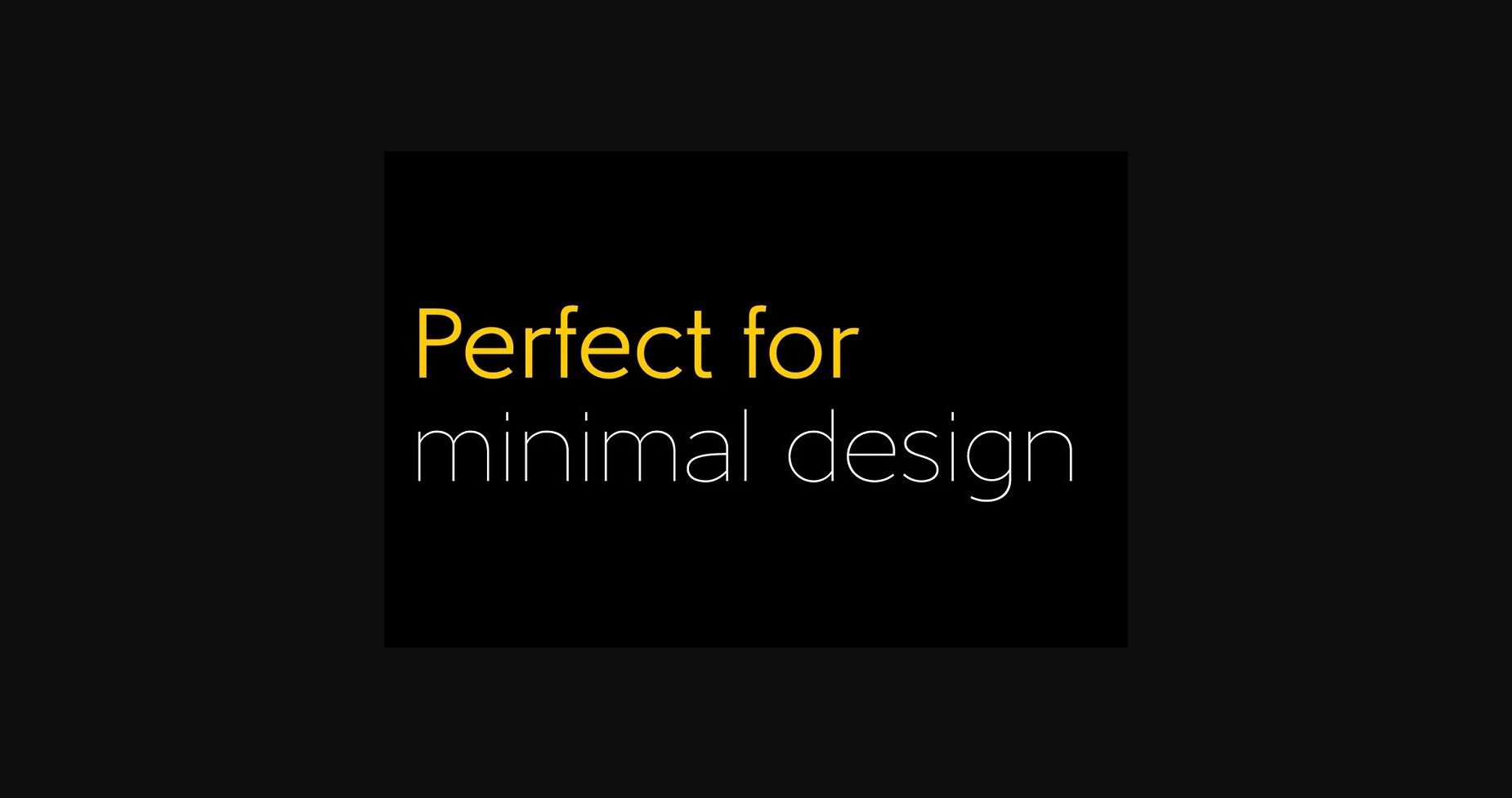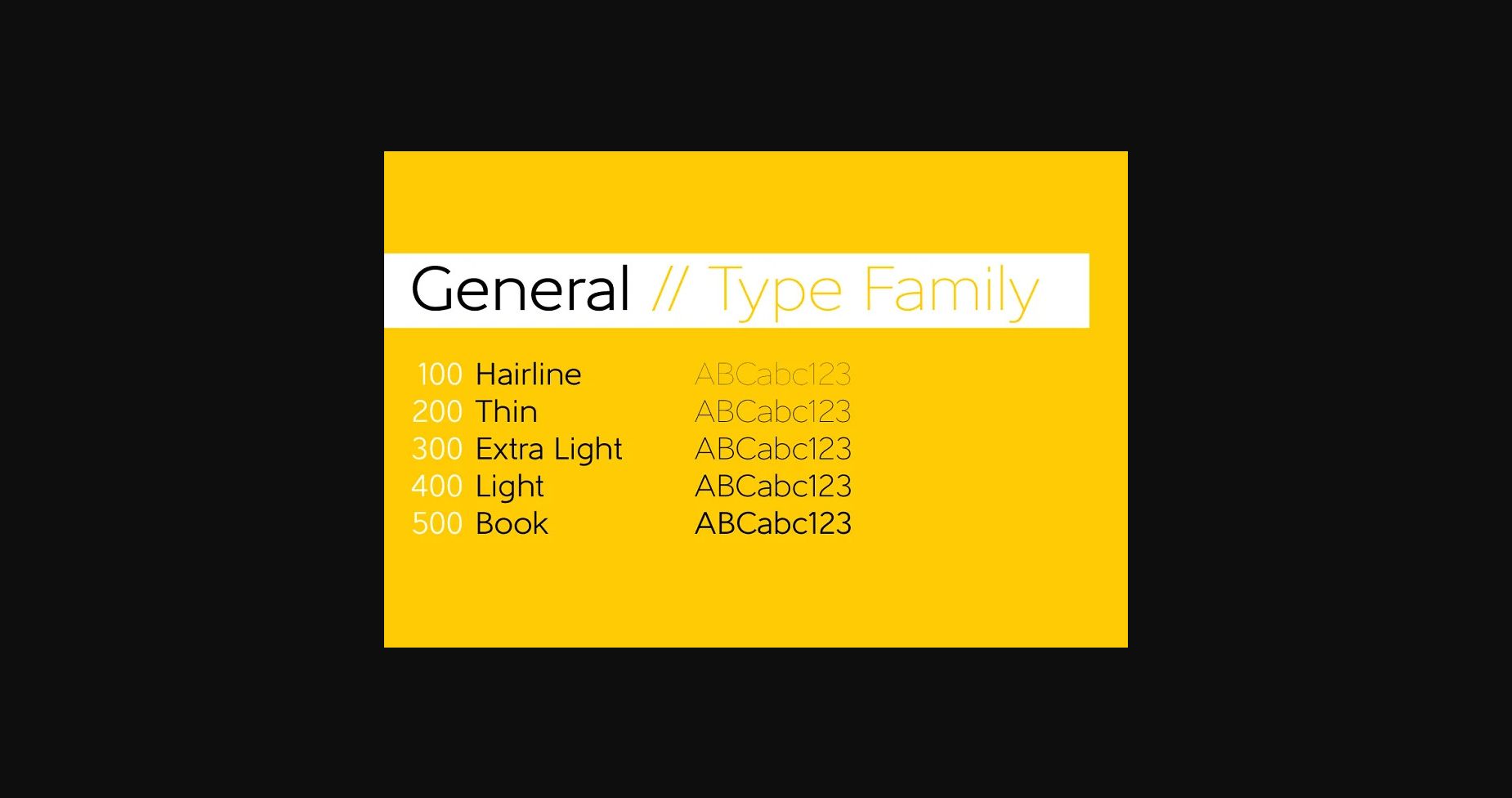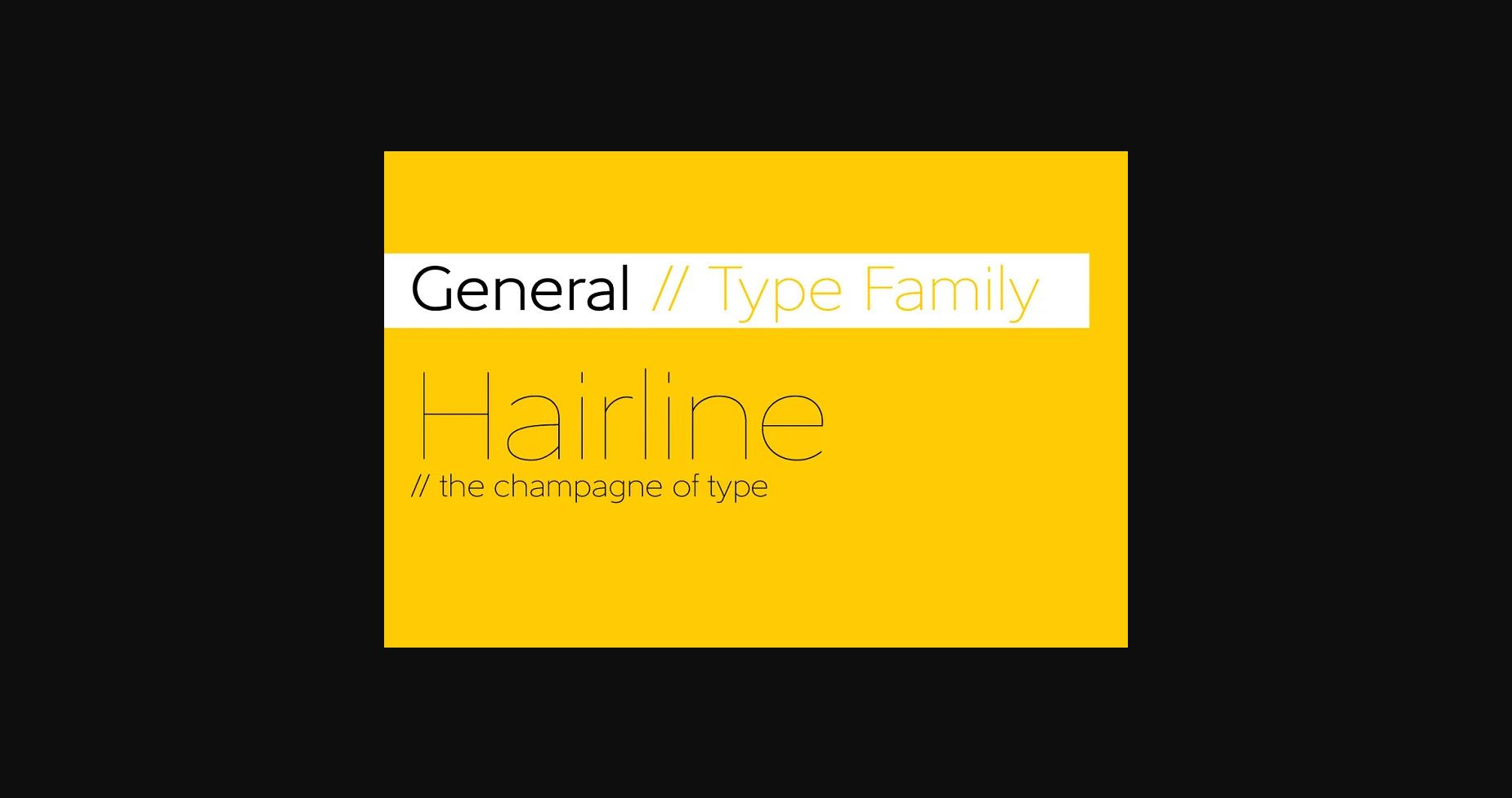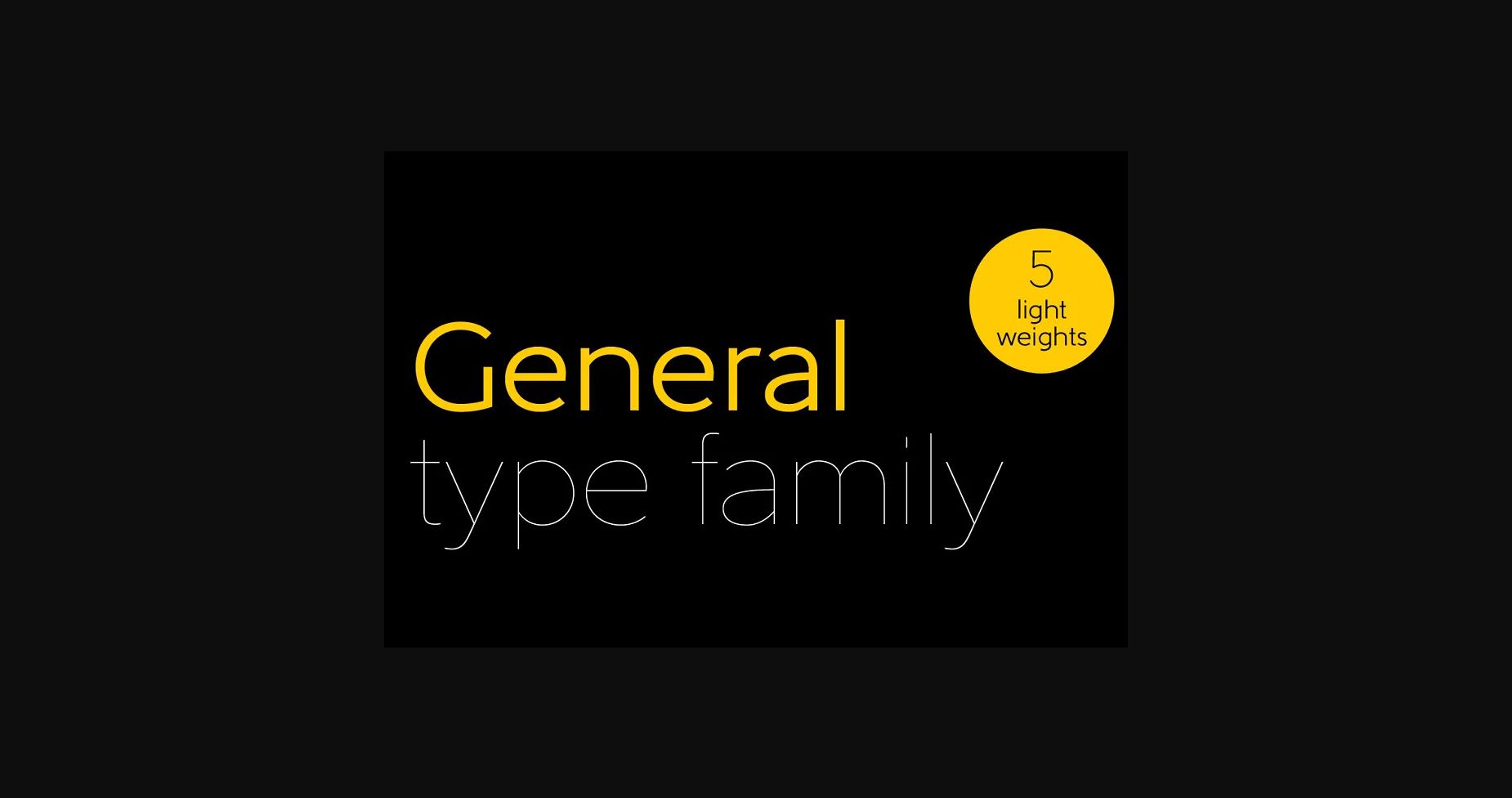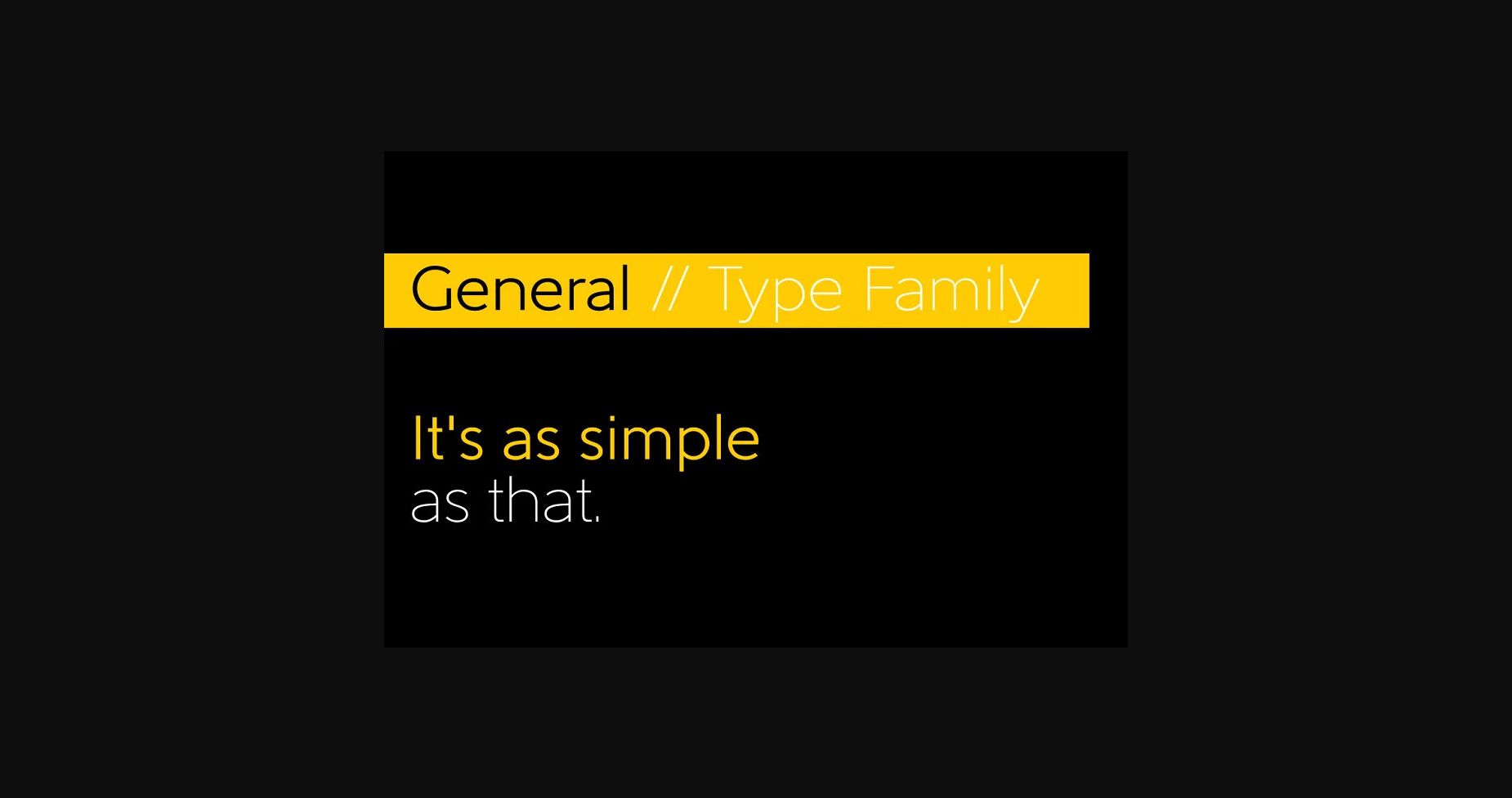
About General Font
General is a sans serif font family. This typeface has five styles and was published by Juraj Chrastina.
It’s all about these subtle nuances that make a neutral sans typeface different. Pure geometry with a human touch is a recipe that works in every generation. Inspired by classical fonts from the early 20th century, General rides the line between traditional and modern styles.
With its 5 lightweights, the General family is a strong tool for a clean design.
It’s all about these subtle nuances that make a neutral sans typeface different. Pure geometry with a human touch is a recipe that works in every generation. Inspired by classical fonts from the early 20th century, General rides the line between traditional and modern styles.
With its 5 lightweights, the General family is a strong tool for a clean design.